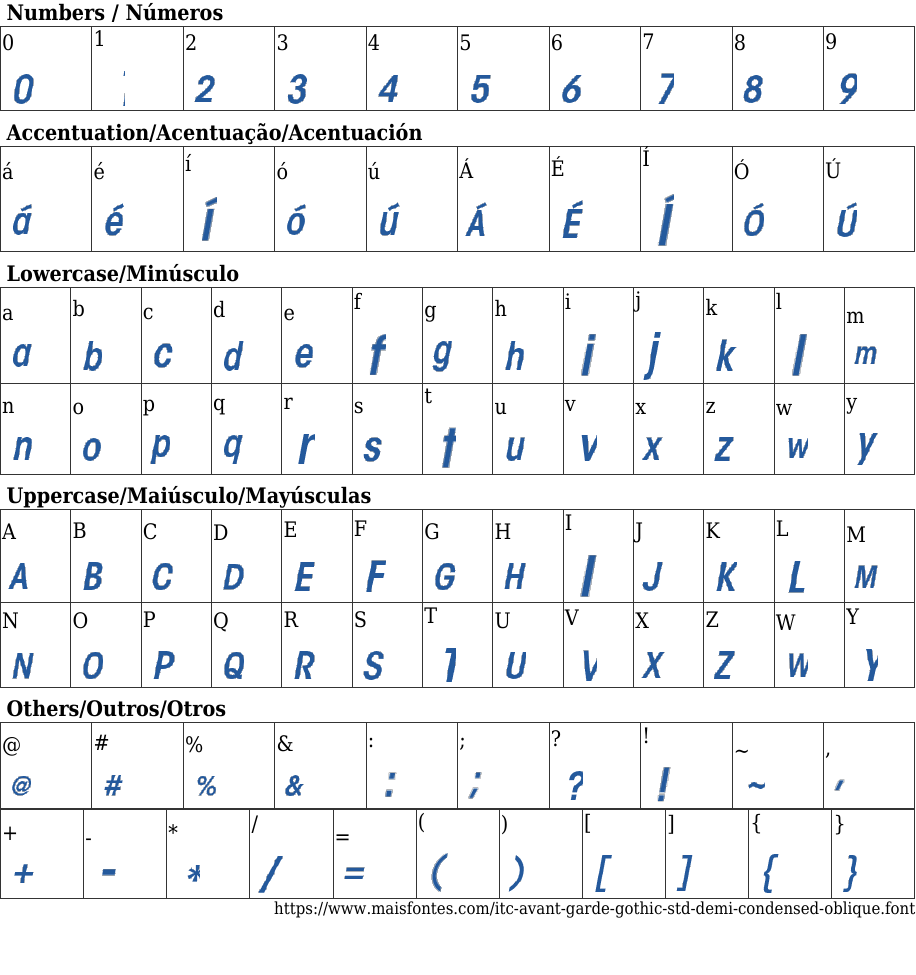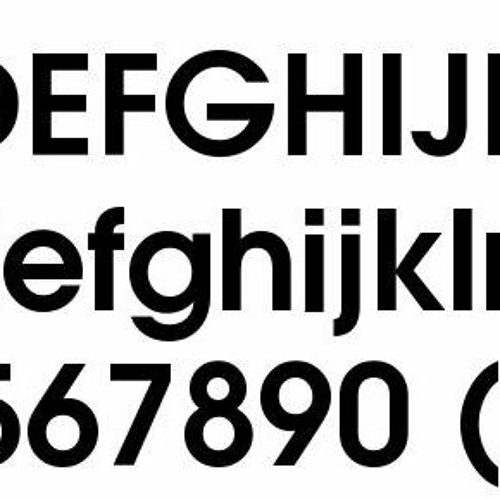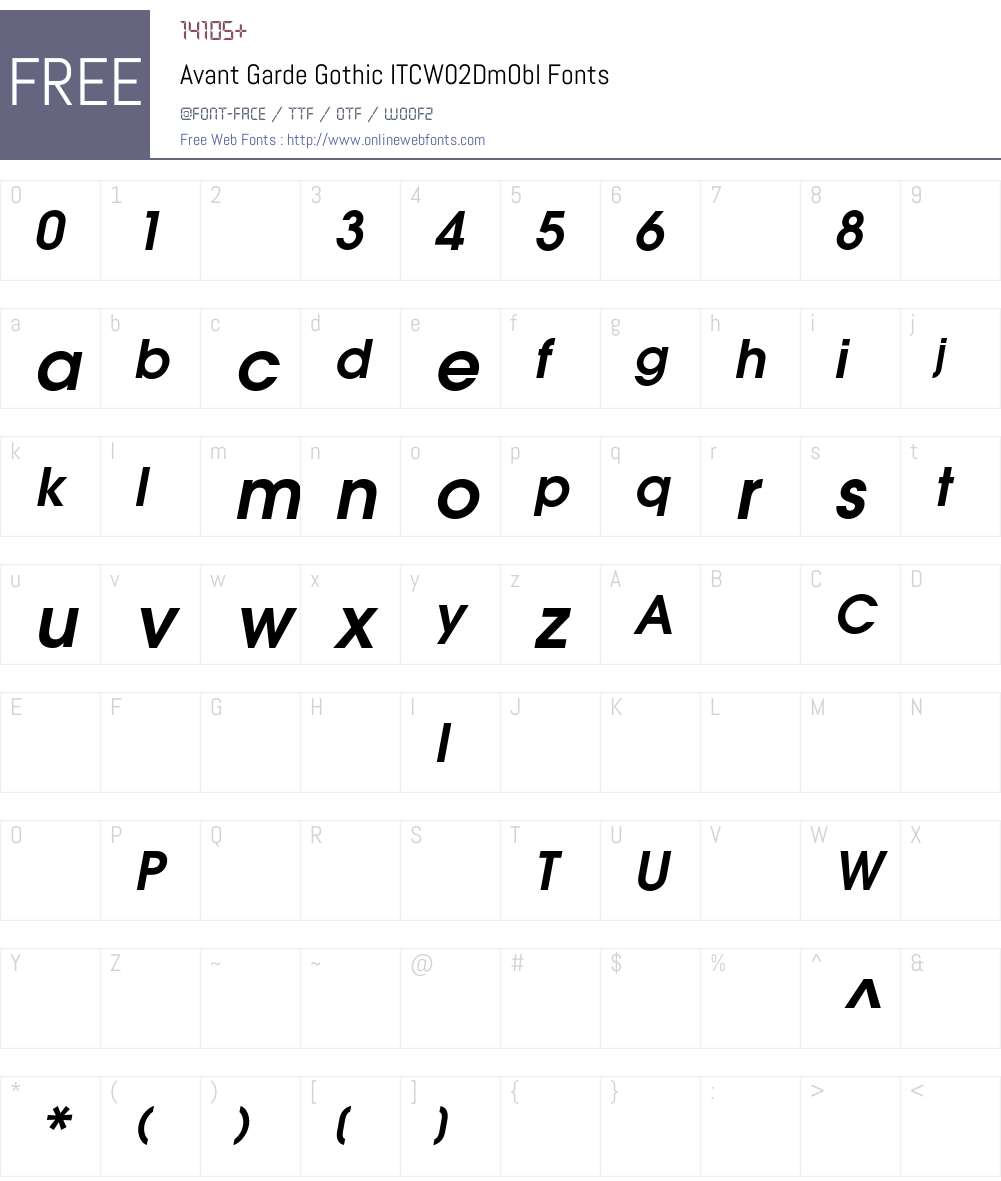
Itc Avant Garde Gothic Std Demi Font . Itc avant garde gothic® demi is available in. Download itc avant garde gothic® demi, provided on fonts.com from adobe. Itc avant garde gothic font: ← back to family page. This font is from the itc avant garde gothic std family and we found 9. Herb lubalin devised the logo concept and its companion headline typeface,. Itc avant garde gothic demi bold oblique. View sample text, character map, user. Download itc avant garde gothic for free, view sample text, rating and more on fontsgeek.com. Download itc avant garde gothic std for free, view sample text, rating and more on fontsgeek.com. Download itc avant garde gothic std demi for free. Download the itc avant garde gothic std font family. Itc avant garde gothic is a font family based on the logo font used in the avant garde magazine.
Itc avant garde gothic® demi is available in. Herb lubalin devised the logo concept and its companion headline typeface,. This font is from the itc avant garde gothic std family and we found 9. Download itc avant garde gothic std demi for free. Download the itc avant garde gothic std font family. Itc avant garde gothic is a font family based on the logo font used in the avant garde magazine. Itc avant garde gothic demi bold oblique. View sample text, character map, user. Download itc avant garde gothic for free, view sample text, rating and more on fontsgeek.com. ← back to family page.